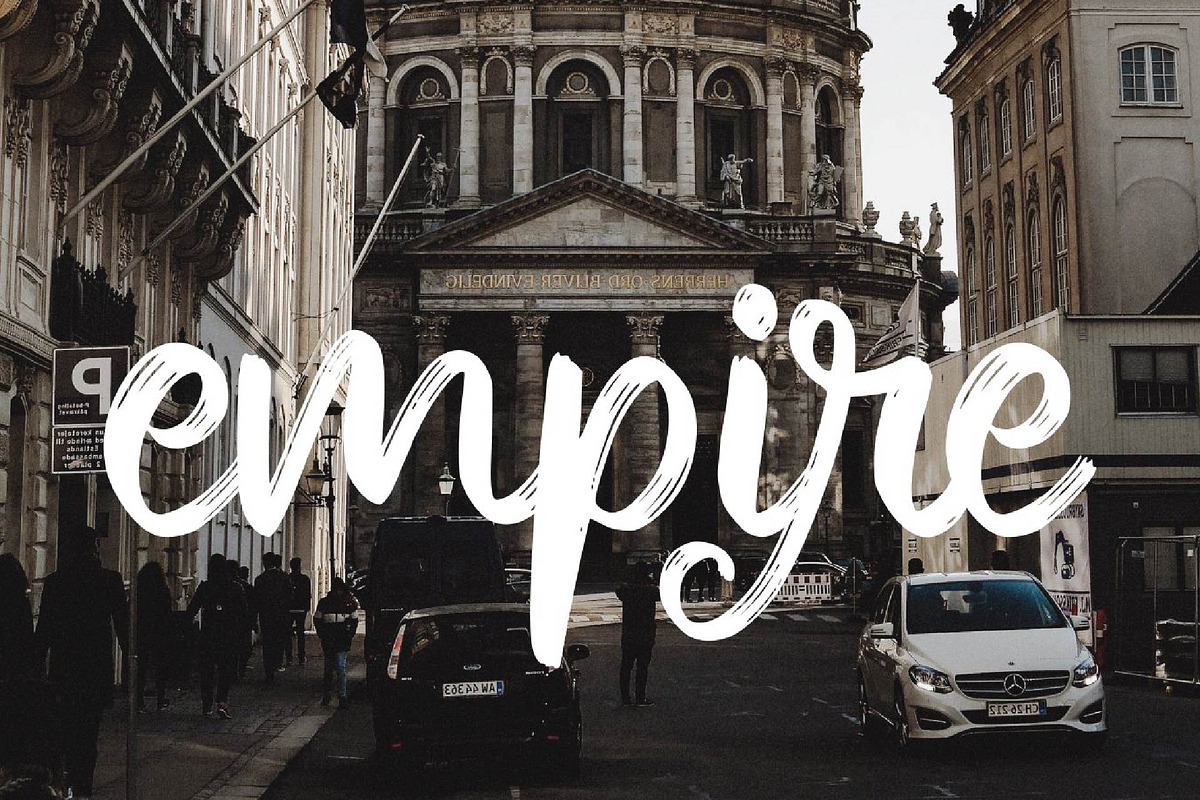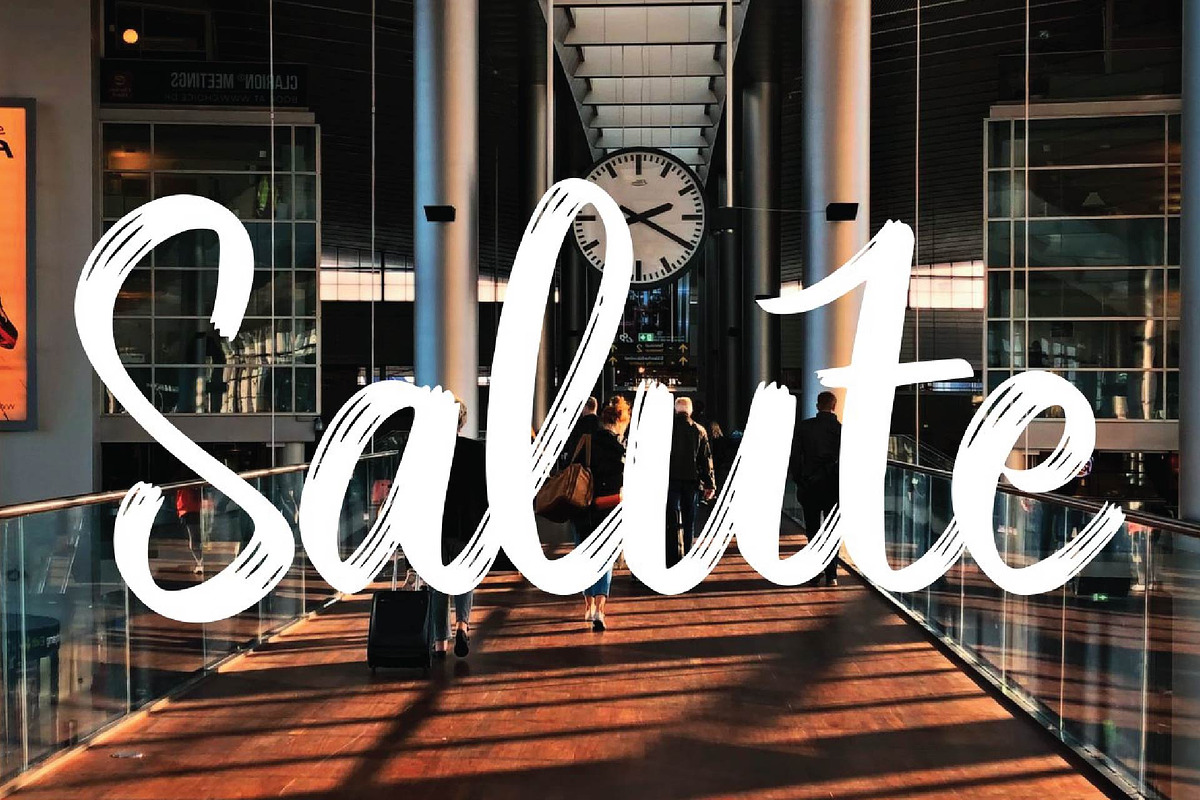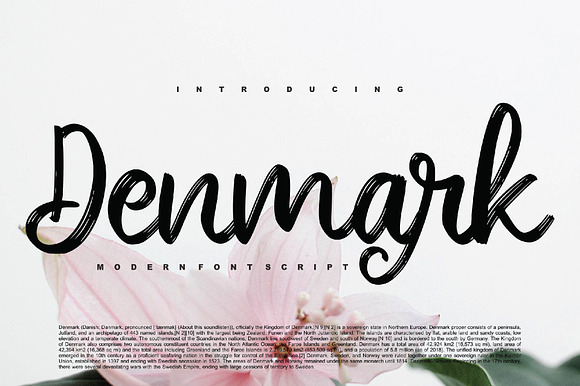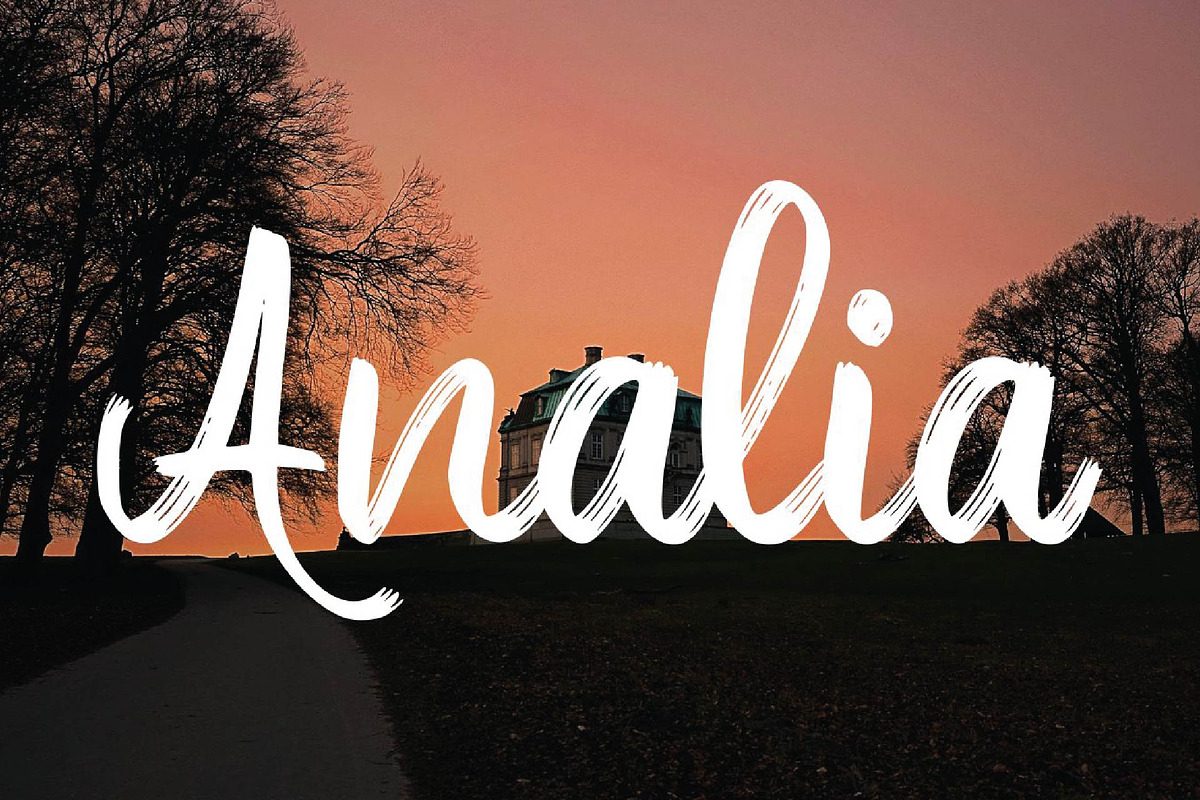
Denmark - Modern Brush Font Script
Denmark - Modern Brush Font Script with a calligraphy style, So beautiful on invitation like greeting cards, branding materials, business cards, quotes, posters, and more!
The alternative characters were divided into several features such as Stylistic Sets, Stylistic Alternates, Contextual Alternate, SWASH and Ligature.
Why Denmark - Modern Brush Font Script is worth a look
Denmark - Modern Brush Font Script by KAZ by IanMikraz Studio fits naturally into Branding, posters, packaging, typography.